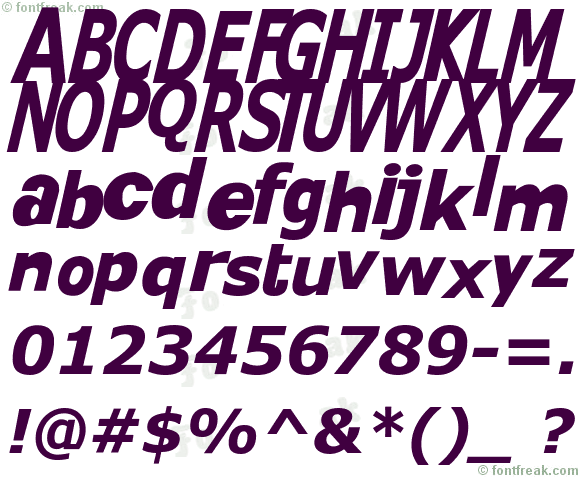
Kitty Katt
The Kitty Katt font by Sharkshock is a distinctive display typeface that exudes a playful yet bold character. Created by designer Dennis Ludlow in 2000, this freeware font captures attention with its unique design elements. The font features a strong stroke weight that offers a sturdy presence, while its slightly rounded edges provide a modern, approachable vibe. The contrast between thick and thin strokes adds a dynamic quality, making it visually appealing for various applications.
Kitty Katt's design is characterized by its quirky letterforms and unique spacing, which contribute to its decorative style. The playful nature of the characters makes it an excellent choice for a range of creative projects. This font is particularly well-suited for children's book covers, whimsical event invitations, vibrant restaurant menus, and eye-catching promotional materials. It can also enhance branding for businesses that want to convey a fun and friendly image.
The target audience for this font includes graphic designers, small business owners, and content creators looking to make their work stand out. Whether you're designing for print or digital platforms, Kitty Katt brings a unique flair that can elevate your projects.
What sets the Kitty Katt font apart is its blend of playfulness and professionalism. It successfully balances a cheerful aesthetic with readability, making it versatile for both casual and formal uses. The Kitty Katt font free download is a fantastic opportunity for anyone seeking to add a touch of creativity to their designs without the burden of licensing fees. With its distinctive style and engaging personality, Kitty Katt is sure to become a favorite among those looking to make a memorable impact.